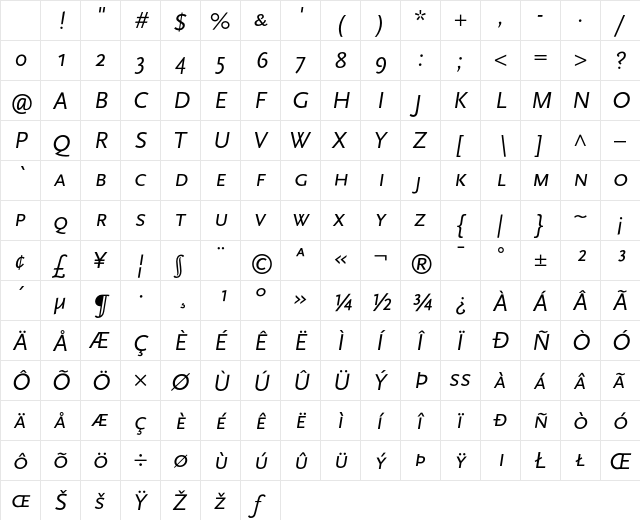
Scala Sans Regular SC Italic
Style: Regular SC Italic
Design Context for Scala Sans
Scala Sans is a composed and adaptable typeface that performs quietly and consistently across a wide range of design contexts. The slanted form adds forward momentum and visual energy.
Pro Tip: Use Scala Sans for emphasis, pull quotes, and subheadings where its slanted energy can add rhythm to the layout.